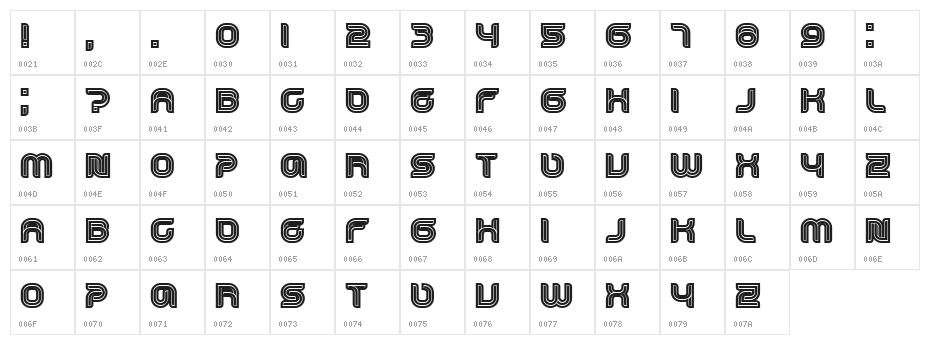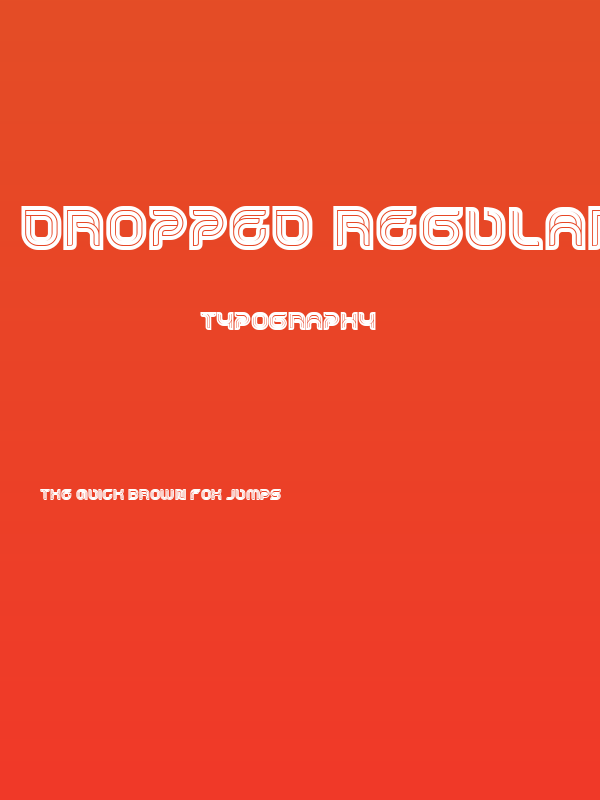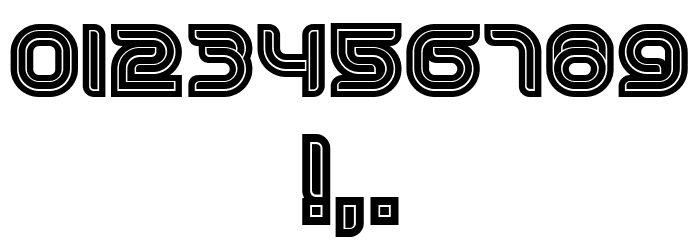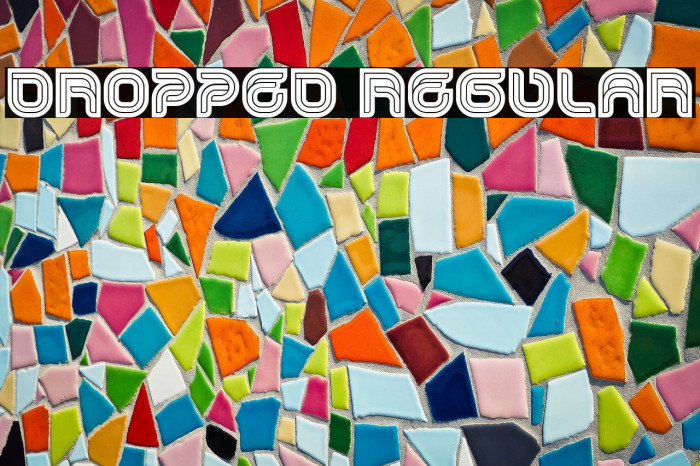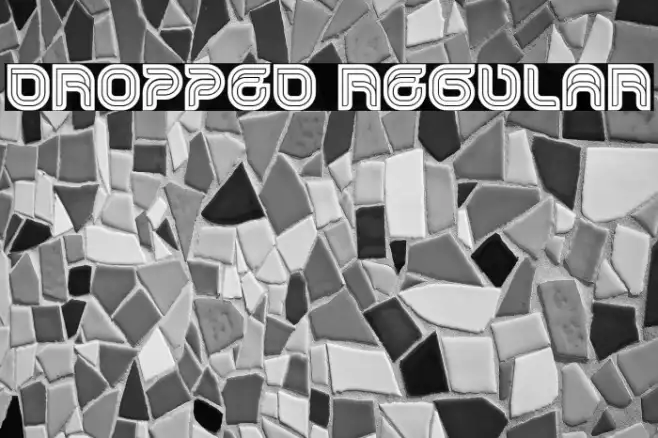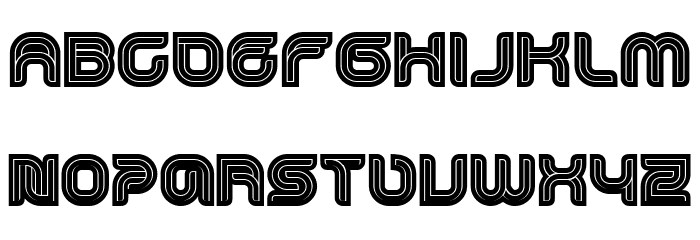
Dropped Regular Font
Dropped Regular Description
This font features a bold, geometric design with a distinct double-line structure that gives it a futuristic and dynamic appearance. The characters are uniformly wide, with rounded edges and consistent stroke thickness, creating a cohesive and modern look. The uppercase and lowercase letters maintain a similar style, ensuring readability and visual harmony. The numerals and special characters follow the same design principles, making them easily recognizable and visually appealing. This font is ideal for projects that require a strong, impactful presence.